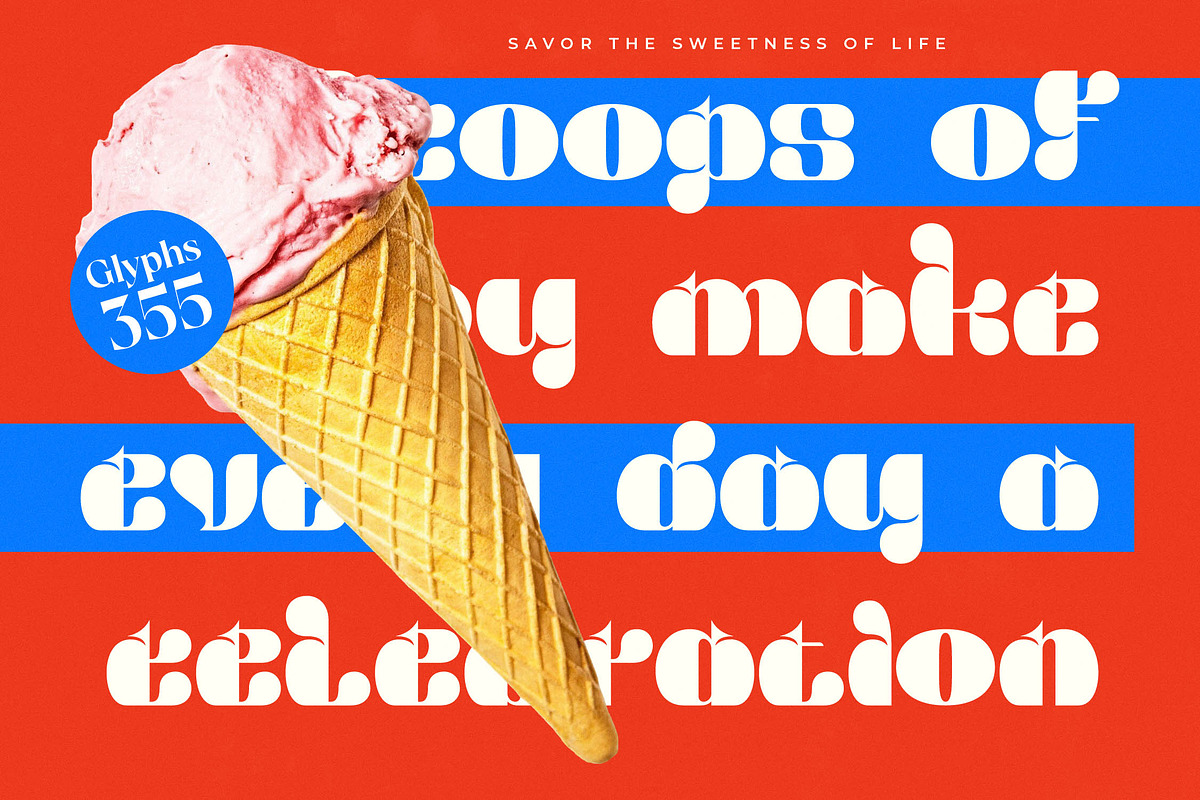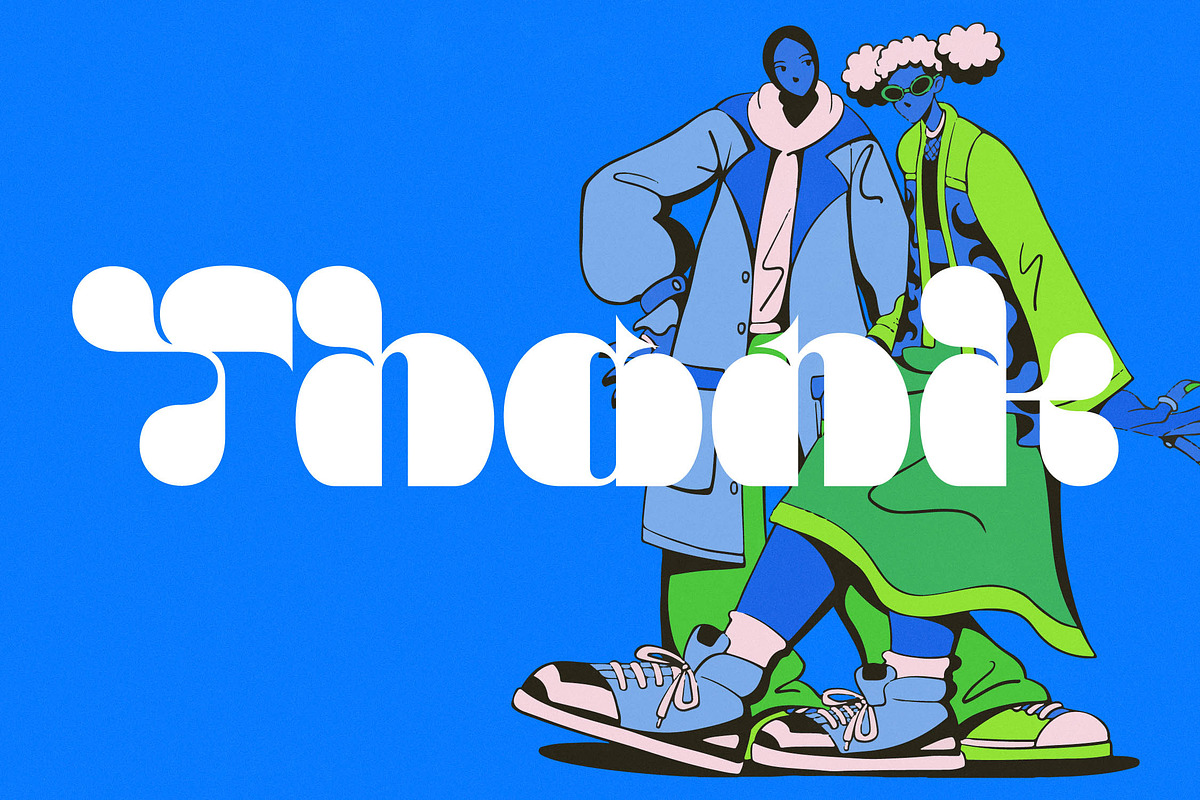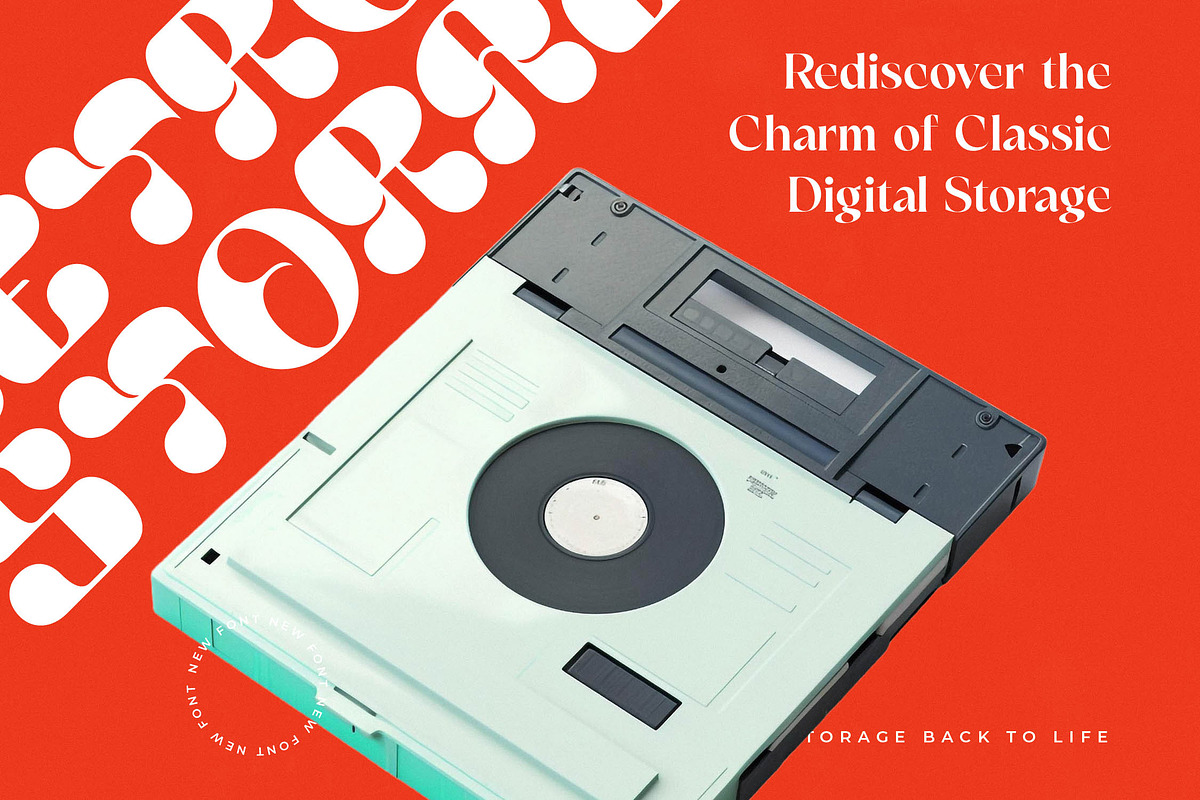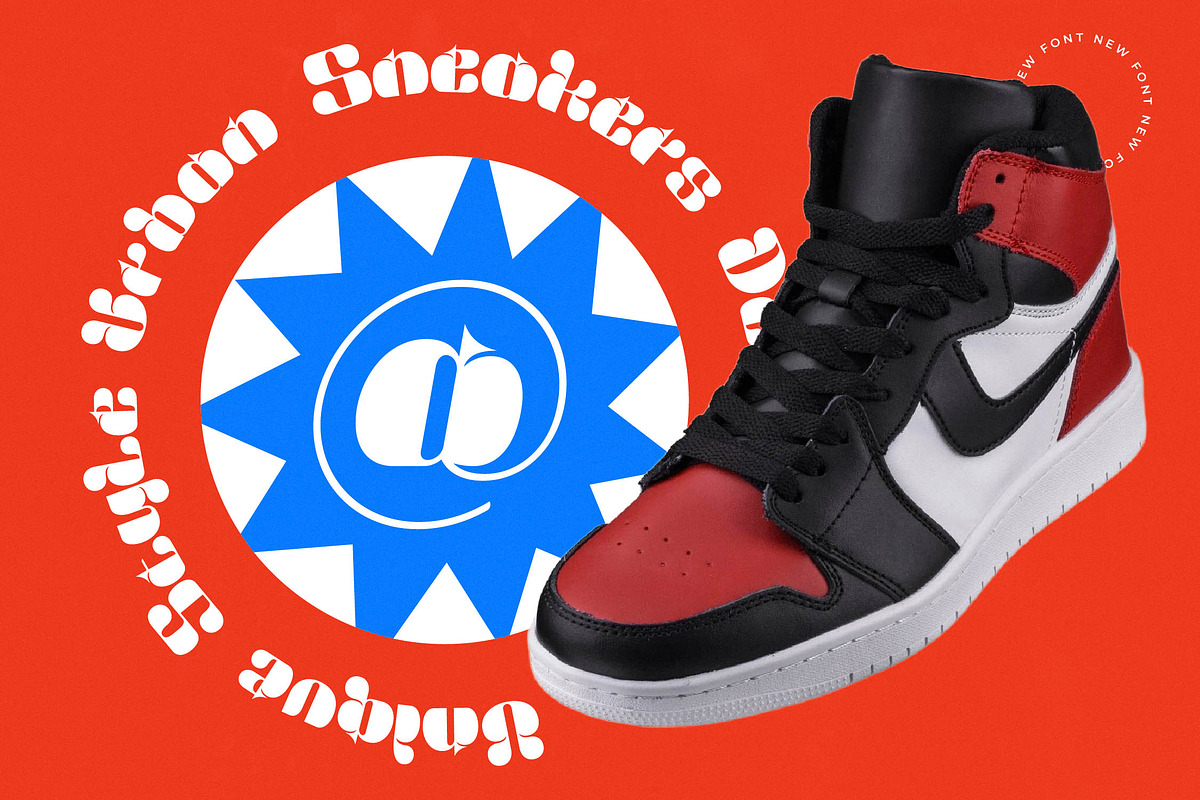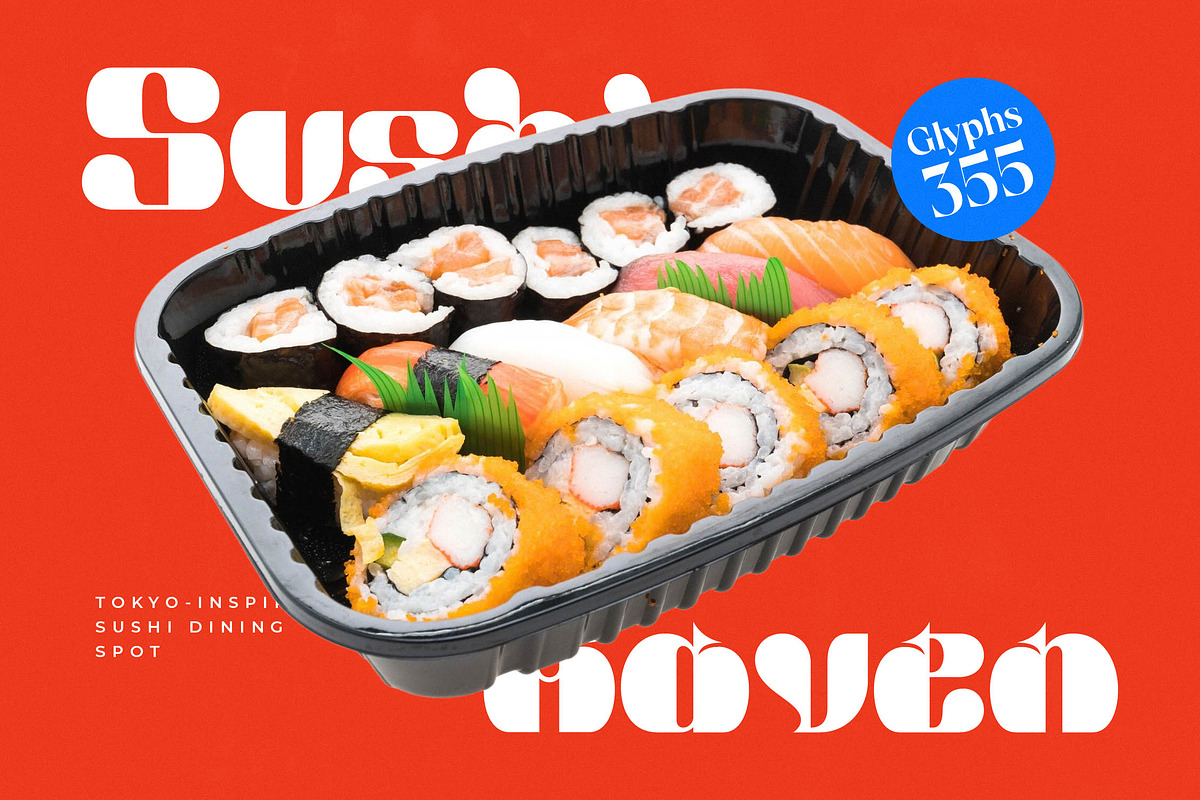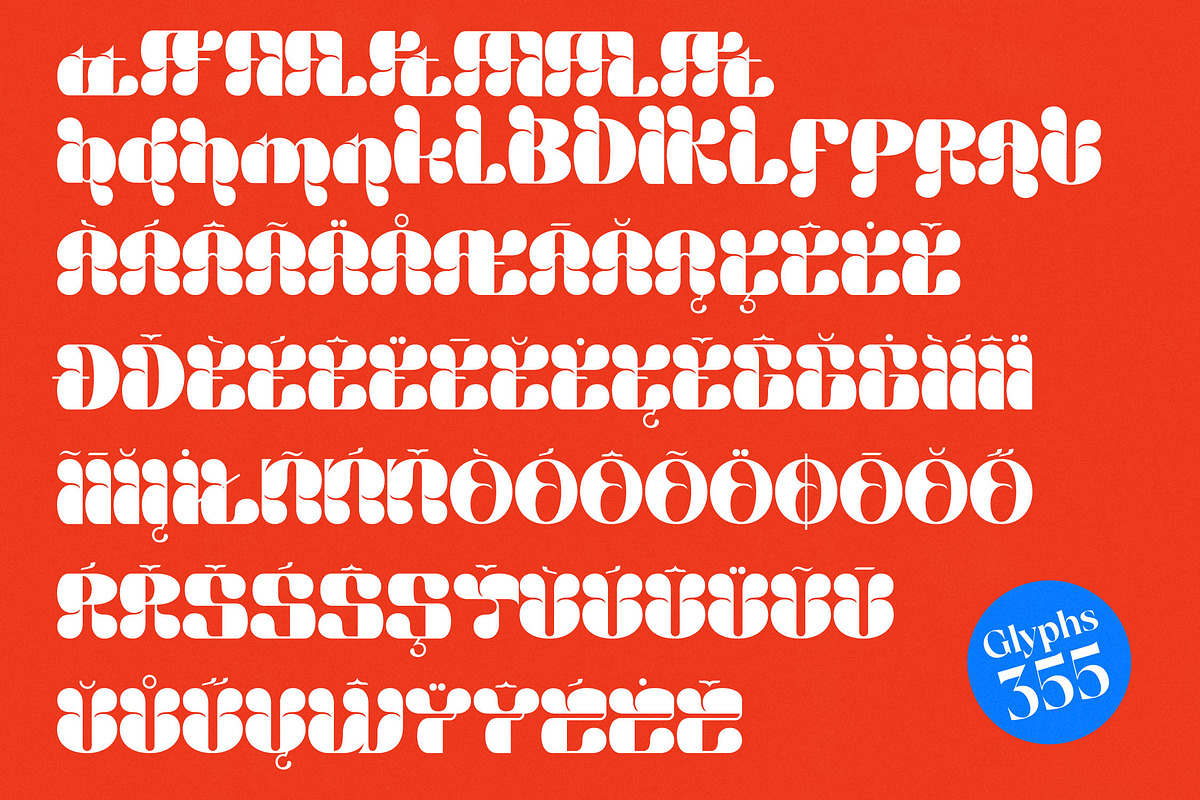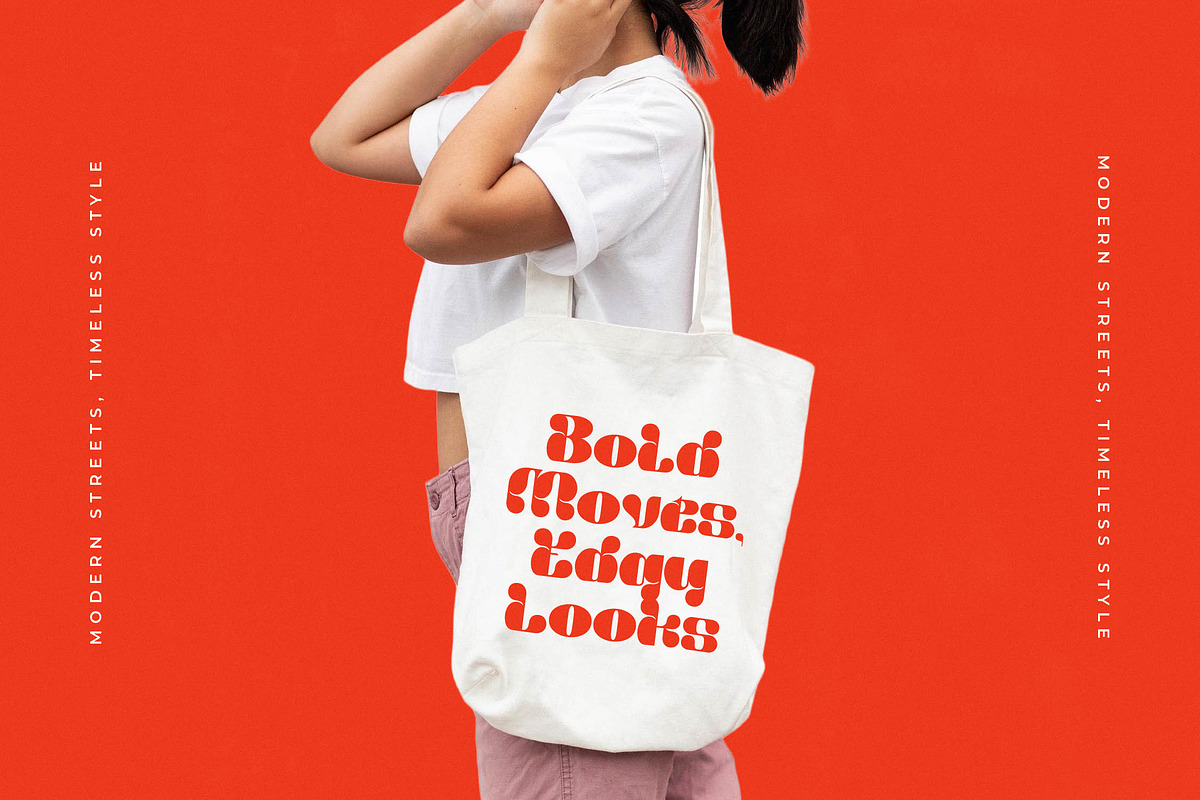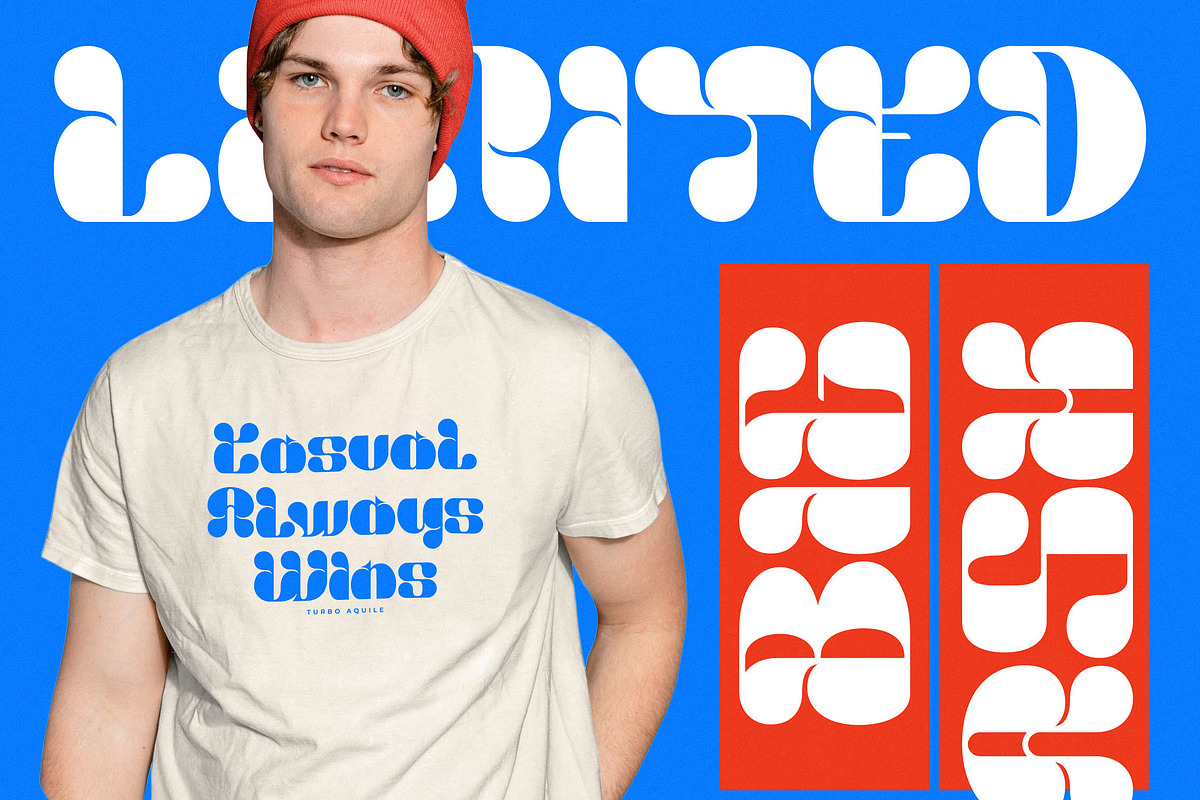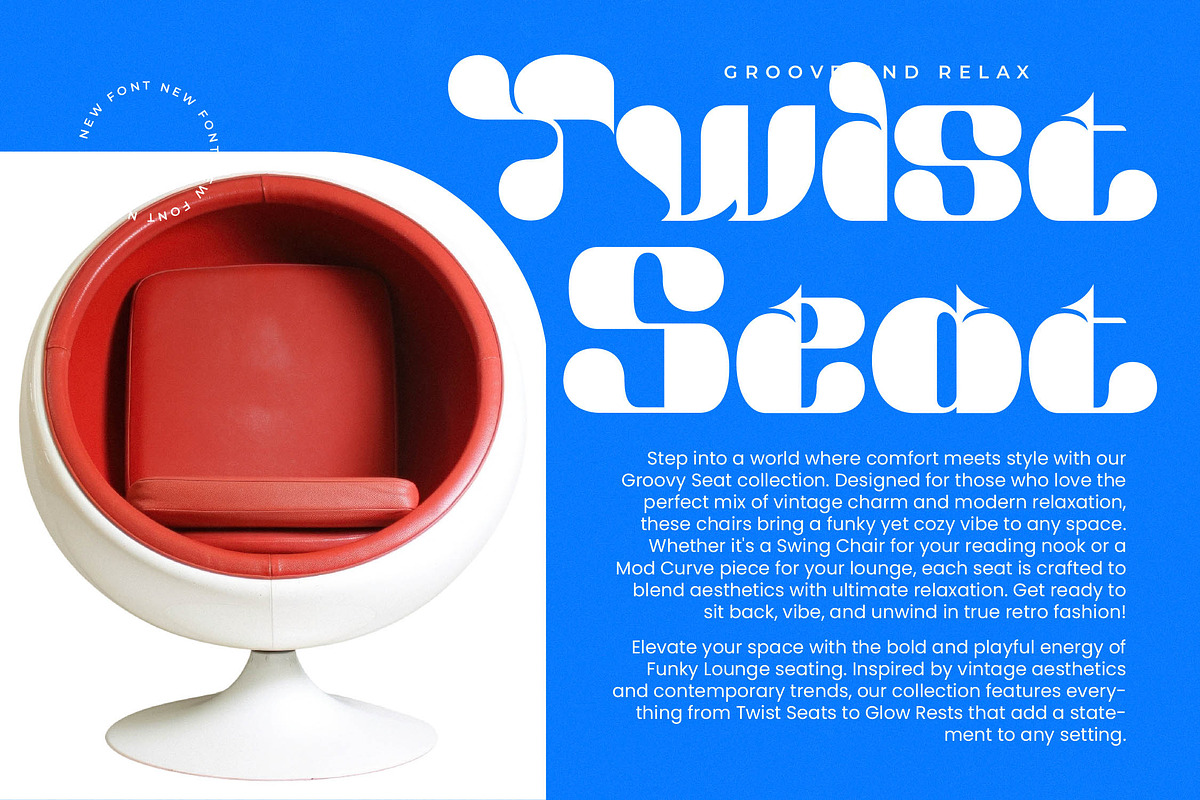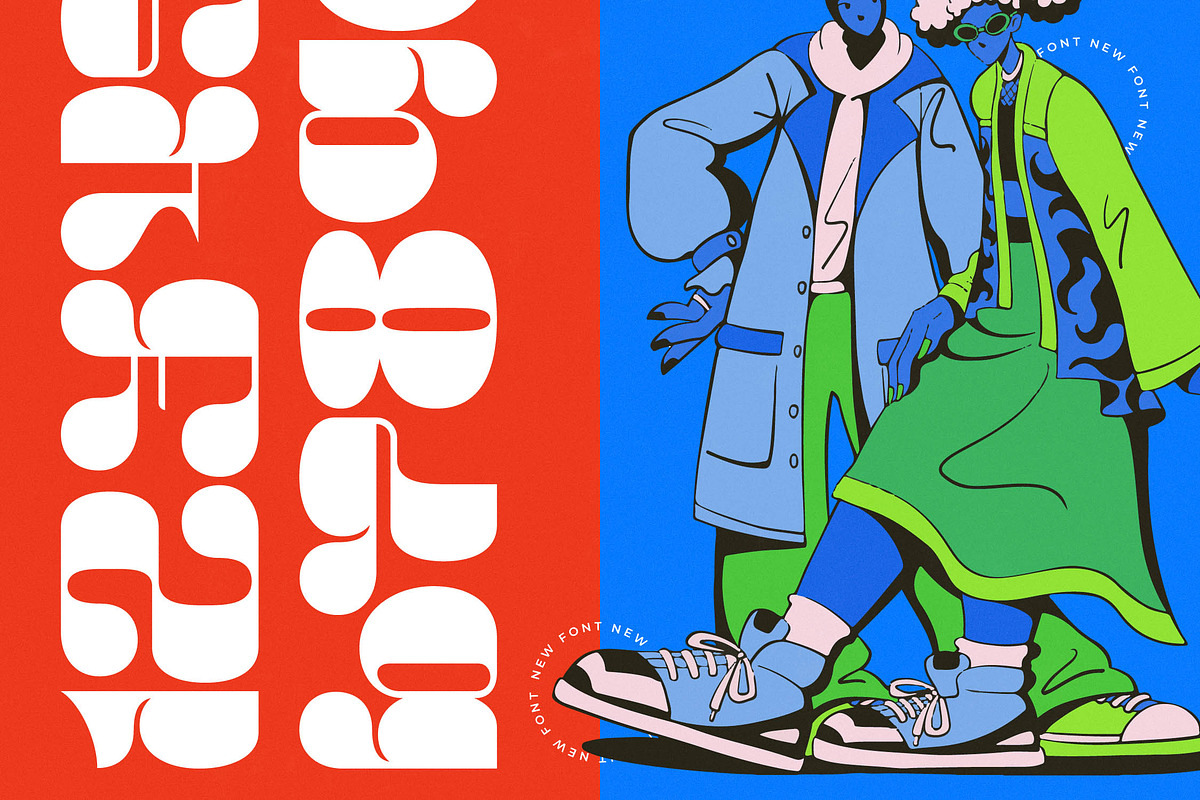
Turbo Aquile Modern Display Serif
Elevate your visual storytelling with Turbo Aquile, a mesmerizing display font that dances between liquid fluidity and sharp editorial precision. This typeface is designed to command attention and transform any static layout into a dynamic masterpiece of contemporary art.
Drawing inspiration from the distorted aesthetics of psychedelic 60s posters and the sleek refinement of modern high-fashion aesthetics, this font bridges the gap between eras. It captures the essence of movement and organic growth, making every word feel like a living, breathing part of your design.
The personality of this typeface is defined by its modern serif display characteristics and an unapologetic branding impact. Its luxury typography feel is achieved through a high-contrast serif design that pairs perfectly with minimalist layouts, creating an editorial font experience that is both sophisticated and daring.
As designers lean into the modern serif trend, there is a growing demand for character-driven typography that breaks away from traditional constraints. Turbo Aquile fits perfectly into the world of editorial display fonts, offering a fresh perspective for creatives looking to stay ahead of the curve in a crowded marketplace.
This versatile typeface is an ideal choice for high-impact logo design and comprehensive branding projects where a unique voice is required. It excels in editorial layouts, avant-garde packaging, and high-fashion lookbooks, while providing a stunning alternative for modern wedding stationery that seeks a bold, non-traditional edge.
Equipped with a robust set of ligatures and alternates, this font allows for endless customization and unique character combinations. It features extensive multilingual support and includes a wide range of international characters, ensuring your message resonates globally without losing its distinctive visual flair.